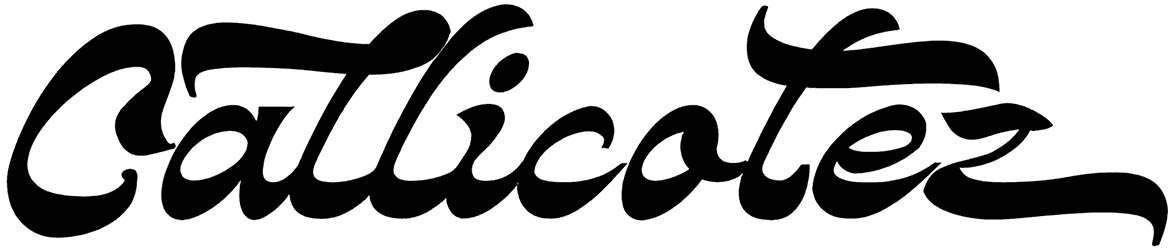
Callicotez Font
Callicotez is a beautiful script font that can easily be matched to an incredibly huge set of graphic projects, ranging from book covers, educational brochures, gift cards, and illustrations to menus. Since this old scho…
Callicotez is a beautiful script font that can easily be matched to an incredibly huge set of graphic projects, ranging from book covers, educational brochures, gift cards, and illustrations to menus. Since this old school font provides wavy and crooked characters, it can bring a sense of comfort, vintage, innovation, or momentum.
This is CALLIZOTEZ font By SesaGrafika